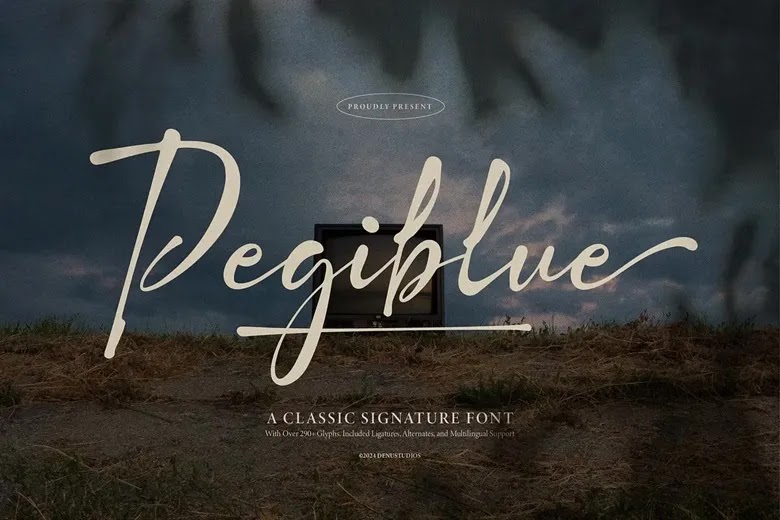
Pegiblue, designed by Denustudios, is a beautifully crafted signature script font that radiates timeless elegance and sophistication. Its graceful curves and fluid strokes create a refined handwritten feel, perfect for adding a personal and luxurious touch to your creative work. Whether you're designing branding materials, elegant logos, or stylish homeware products, Pegiblue enhances every composition with its distinctive charm.
This font shines across a wide range of applications, from packaging designs and mugs to quotes, posters, shopping bags, and apparel. Its handwritten finesse also makes it an excellent choice for book covers, name cards, and heartfelt invitation or greeting cards. The versatility of Pegiblue ensures that it adapts beautifully to both formal and creative projects, bringing a unique sense of authenticity and warmth.
Whether used for personal events or professional branding, Pegiblue adds a classic, signature-style flourish that leaves a lasting impression. Elevate your designs with the elegance and sophistication that only a well-crafted script font can provide.